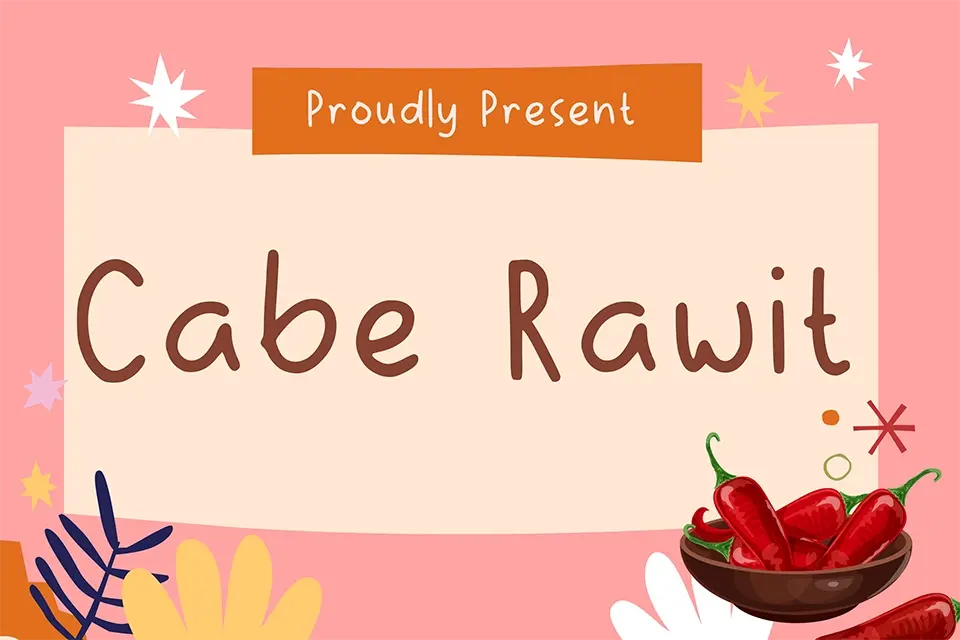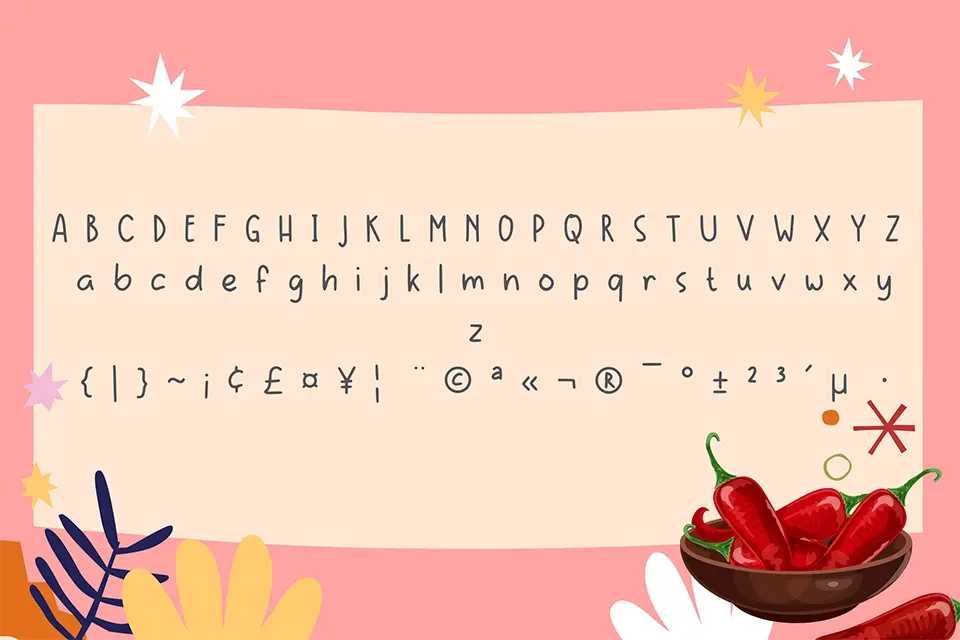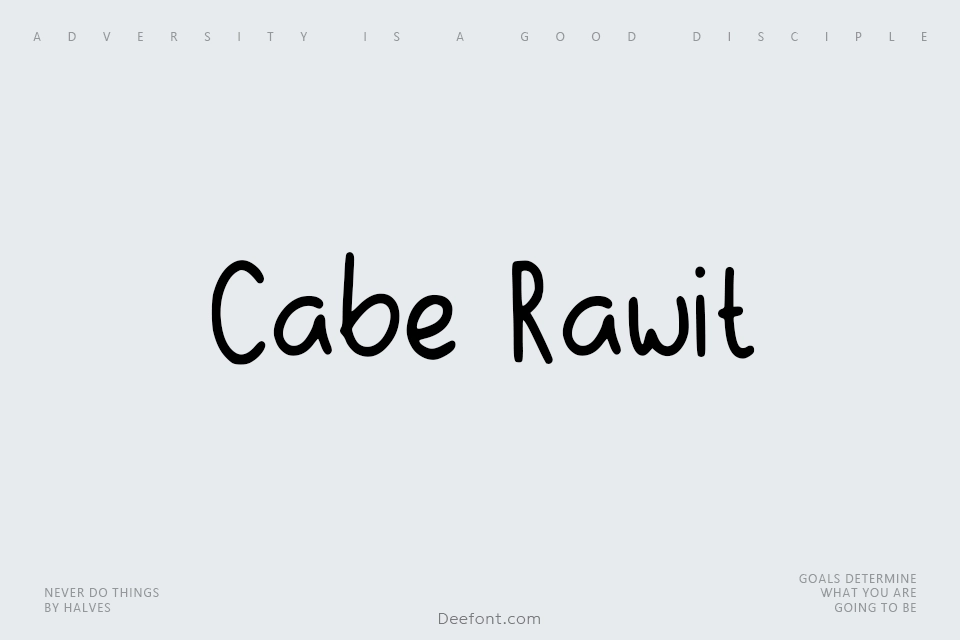
Cabe Rawit Font
Cabe Rawit is a charming handwritten script font designed with curvy, readable lines and a down-to-earth style. Its playful and friendly character features slightly irregular letterforms that evoke a hand-drawn warmth, making it perfect for invitations, branding, logos, and creative projects. The font's casual yet approachable aesthetic adds a touch of informal charm and personality to any design work.